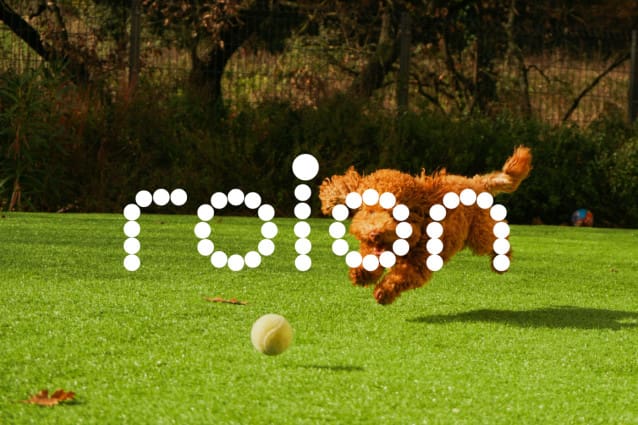
Roinert Display Font
Roinert Display Font, get ready to transform your words into a carnival of colors, a parade of playfulness, and a festival of fonts that will make every reader, big or small, jump for joy!